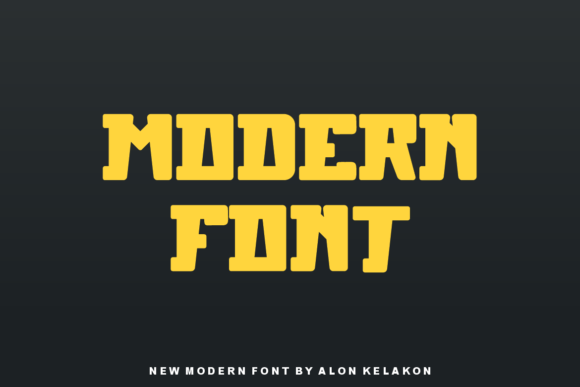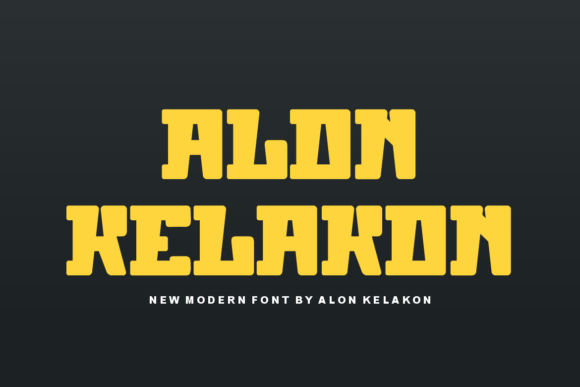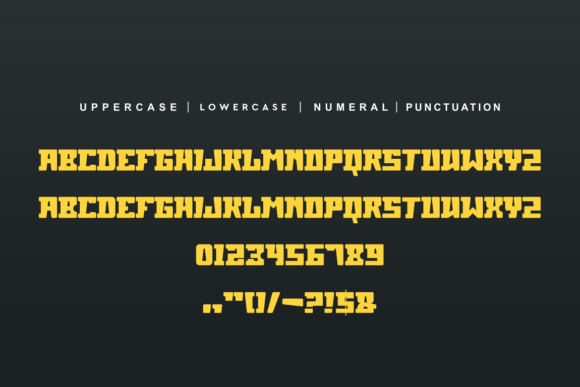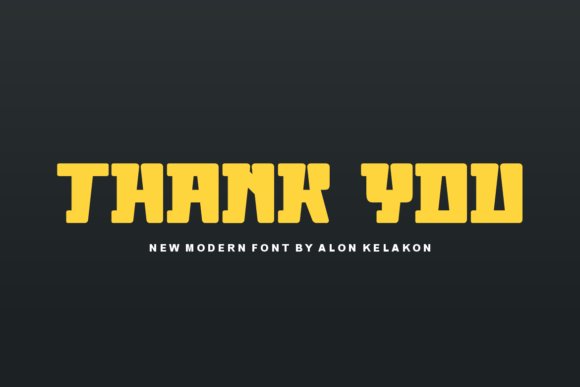
Introduction to Rinogik Font Font
Fonts play a crucial role in design, and the Rinogik Font font is a typeface that brings both character and versatility to any project. Whether you’re working on a branding project, a website, or a print design, the Rinogik Font font offers a unique style that can elevate your work.
Rinogik is a unique and bold display font perfect for labels, branding, logos, clothing, movie titles, posters, music album covers, and many more.
The Rinogik Font font is more than just a typeface – it’s a design tool that helps you communicate your message with style and clarity. Its unique character set and versatile design make it suitable for a wide range of applications, from elegant invitations to bold headlines.
With its carefully crafted letterforms and balanced proportions, the Rinogik Font font ensures readability and visual appeal across all mediums.
The Rinogik Font font stands out with its unique design, exceptional readability, and versatility across various design applications.